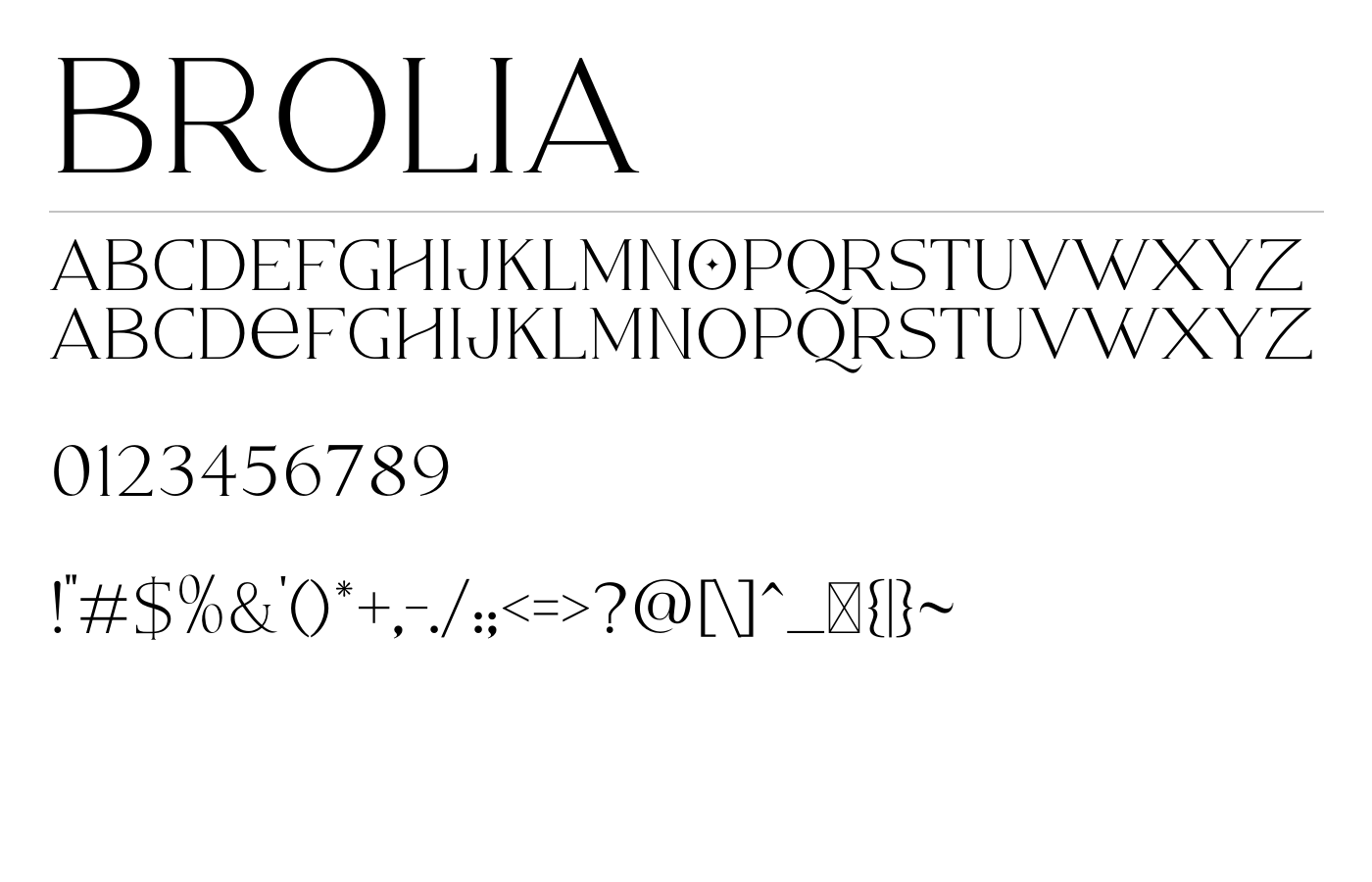
Brolia is an elegant, modern serif font featuring high contrast between its thin and thick strokes, with slender, refined serifs that add sophistication. Its tall x-height and delicate, slightly stylized letterforms give it a luxurious and graceful appearance, making it ideal for upscale branding, editorial headlines, and fashion-related designs. This font combines classic charm with a contemporary feel, perfect for projects seeking a polished and stylish impression.
Brolia Font
About Brolia Font